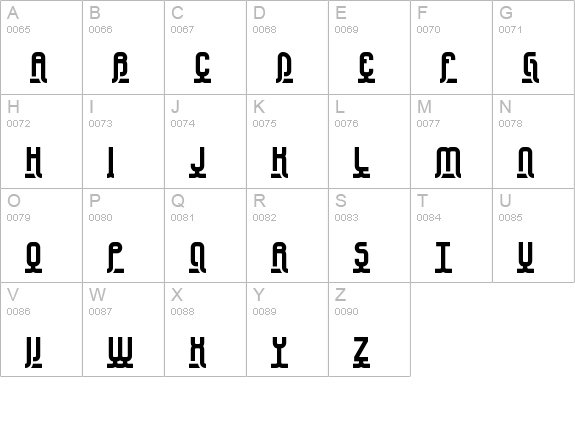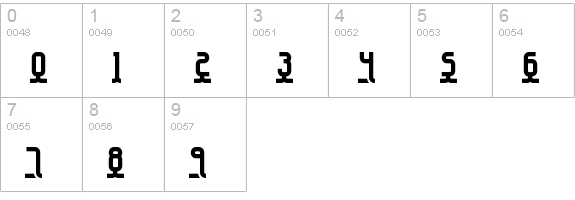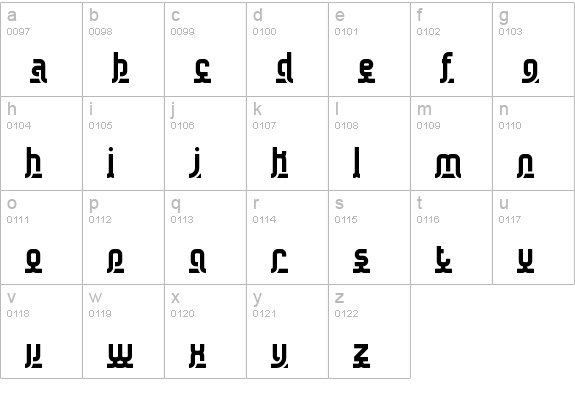
Underscore BRK Font Details
Underscore BRK font is a stunning typeface that effortlessly blends modern and classic design elements, making it the perfect choice for a wide range of creative projects. With its clean lines and bold strokes, this versatile font exudes confidence and style. What sets Underscore BRK font apart is not only its aesthetic appeal but also its accessibility. It is freely available to download at FontsMarket.com, making it a fantastic option for designers, artists, and enthusiasts alike who are looking to add a touch of sophistication to their work. Whether you're designing a logo, creating a poster, or crafting a website, Underscore BRK font will elevate your project to new heights. Its timeless elegance and legibility make it suitable for both headlines and body text, ensuring your message is conveyed with clarity and impact. The versatility of Underscore BRK font shines through in its extensive character set, which includes uppercase and lowercase letters, numbers, punctuation marks, and special symbols. This comprehensive range of glyphs allows you to express your creativity and customize your designs to perfection. Underscore BRK font's impeccable craftsmanship and attention to detail make it a true standout in the world of typography. Its smooth curves and balanced proportions ensure that every letter flows seamlessly, resulting in a harmonious visual experience for your audience. So, if you're searching for a high-quality font that combines elegance, versatility, and accessibility, look no further than Underscore BRK font. Download it for free at FontsMarket.com and unlock a world of possibilities for your next design project.